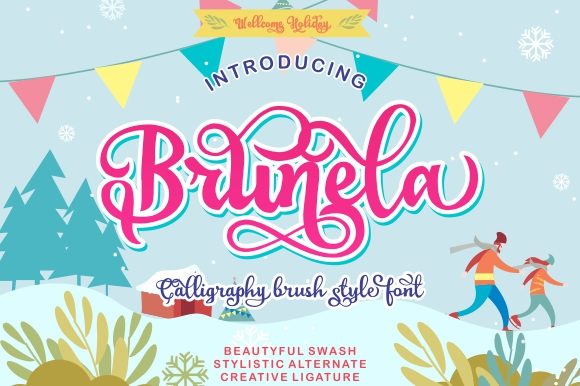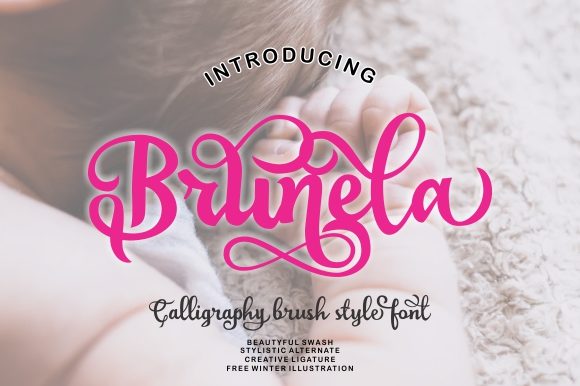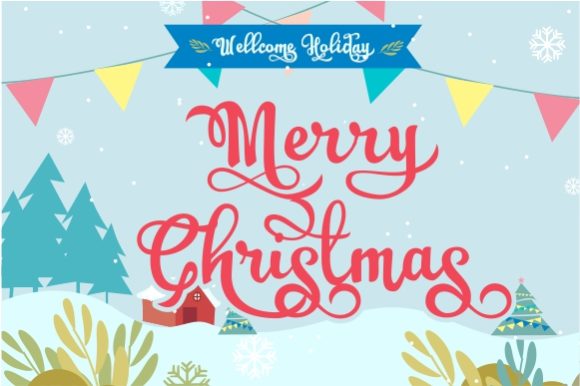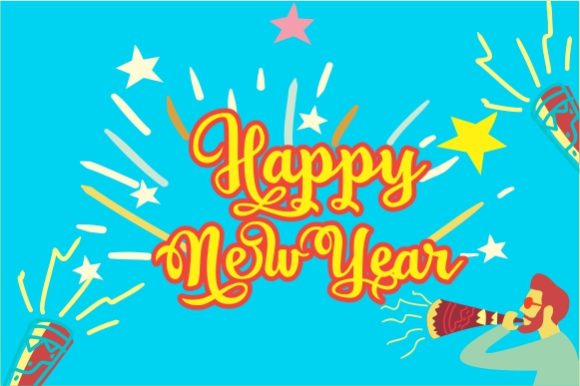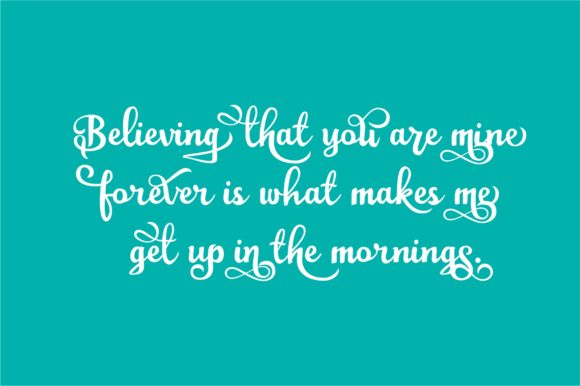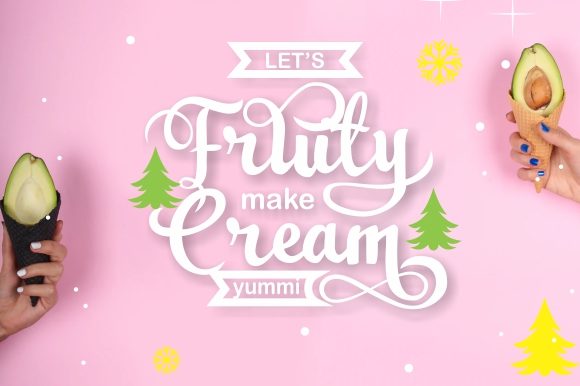
Brunela Font
About Brunela Font
Brunela is a whimsical and cute handwritten font that features beautiful swashes. Fall in love with its playful and dynamic charm!